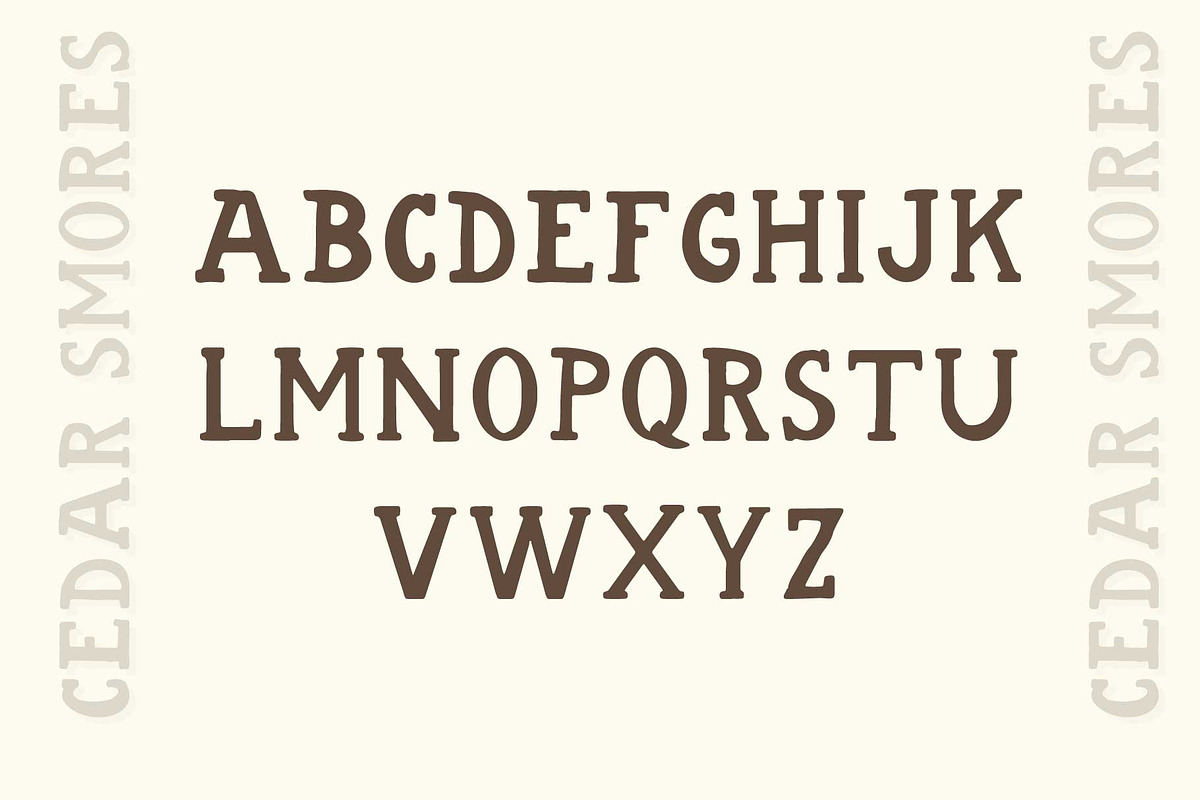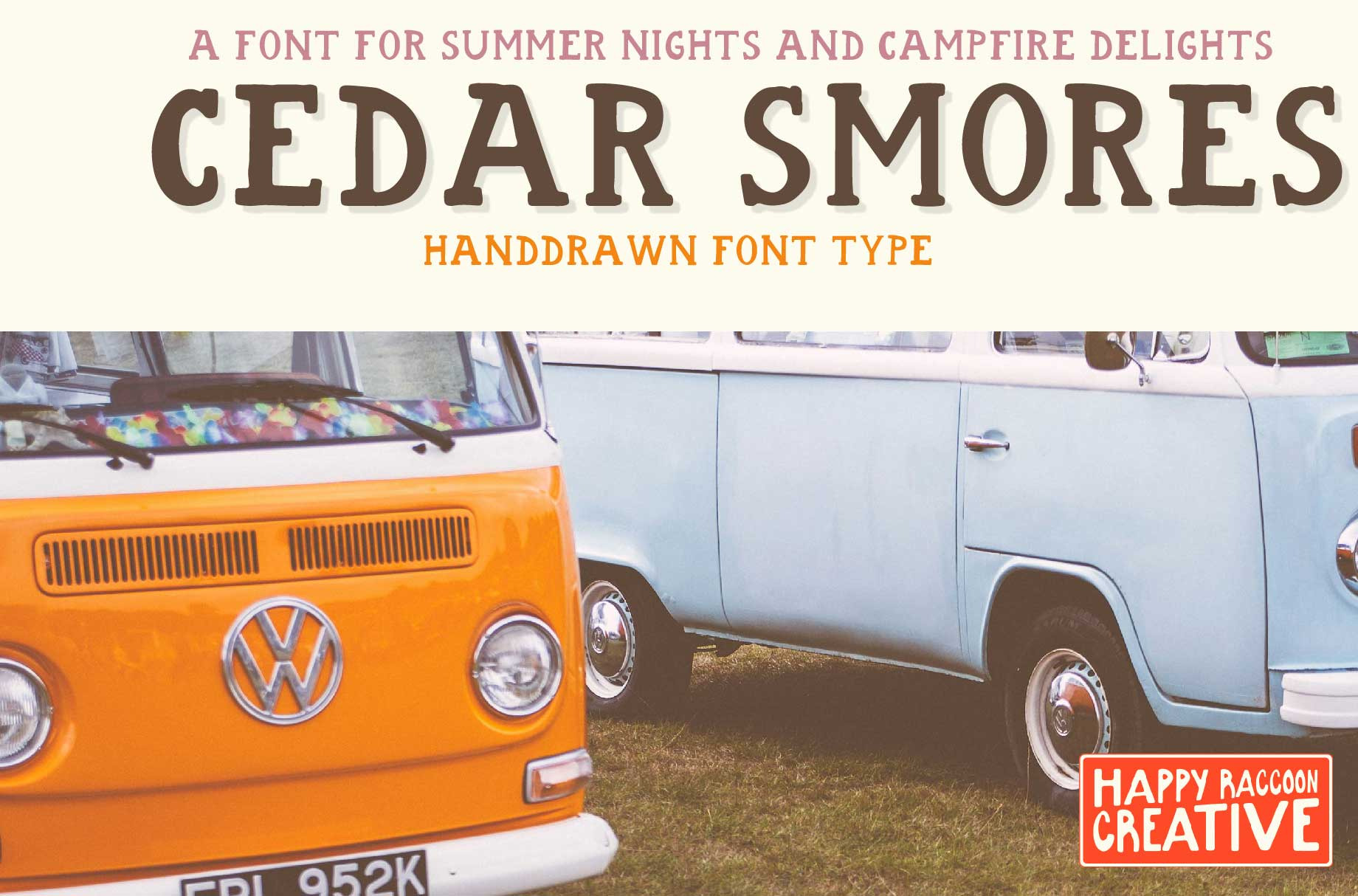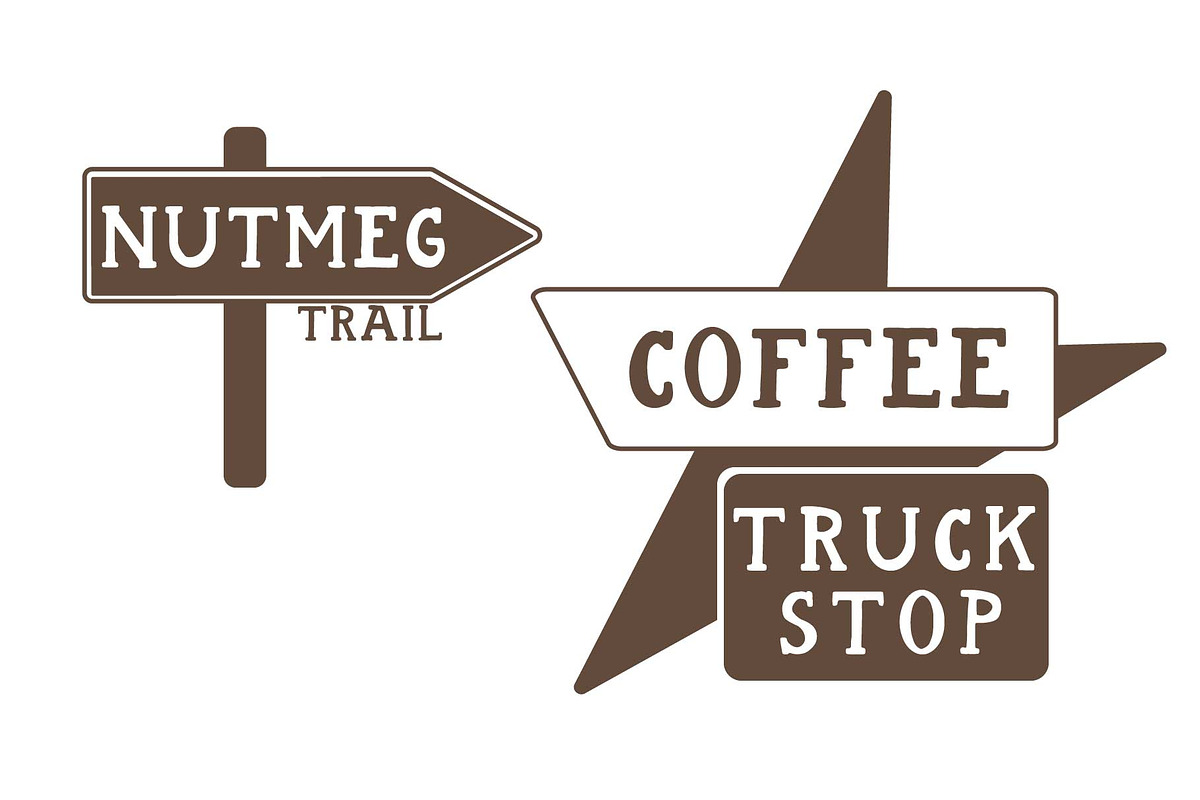
Cedar Smores - Handdrawn Font
Cedar Smores is hand-drawn typeface inspired by crackling campfires, wooden trail signs, and the nostalgia of summer camp adventures. With warm, serifed letterforms and organic strokes, this font captures the charm of imperfect handwriting carved into tree bark or painted on weather-worn direction signs pointing toward cabins, mess halls, and new friendships.
Each letter is infused with personality, slightly irregular edges, subtle texture, and whimsical curves , creating the feeling of your week away from home, where stories were shared under the stars and days were marked by muddy shoes and sun-faded journals. Campfire Serif balances structure with spontaneity, offering perfect imperfection for projects that want to feel human, heartfelt, and outdoorsy.
Camp-themed branding Children’s books and summer flyers Outdoor gear packaging Scrapbooking and memory keeping Any design needing a spark of rustic charm and warmth.